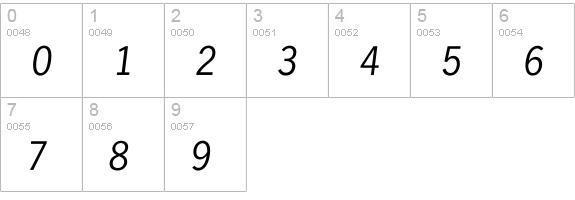
Ihamburg Light is a refined, elegant variant in the Ihamburg typeface family \xE2\x80\x94 well suited to elegant body text, refined sub-headings, and luxury branding.
Ihamburg Light is a sleek and modern font that exudes elegance and sophistication. This font is perfect for creating eye-catching headlines, logos, and branding materials. With its clean lines and delicate curves, Ihamburg Light adds a touch of refinement to any design project. What sets Ihamburg Light apart is not just its stunning aesthetics, but also the fact that it is available for free download. Yes, you heard that right! This incredible font is freely available to download at FontsMarket.com. Whether you are a professional designer or a creative enthusiast, you can now access this amazing font without breaking the bank. Ihamburg Light offers a wide range of versatility, making it suitable for a variety of design purposes. From elegant wedding invitations to stylish fashion magazines, this font effortlessly adapts to any context. Its light weight adds a sense of airiness and delicacy, while its precise letterforms ensure clarity and legibility. The attention to detail in Ihamburg Light is truly remarkable. Each character is meticulously crafted, resulting in a harmonious and cohesive typeface. The lowercase letters feature a subtle slope, adding a touch of dynamism to the overall design. The uppercase letters, on the other hand, have a bold and commanding presence, making them perfect for creating impactful headlines. Ihamburg Light is a font that combines aesthetic appeal with practicality. Its slender and graceful strokes create a sense of modernity, while its ease of use ensures that designers of all skill levels can incorporate it seamlessly into their projects. So why wait? Head over to FontsMarket.com and unleash your creativity with the freely available Ihamburg Light font.